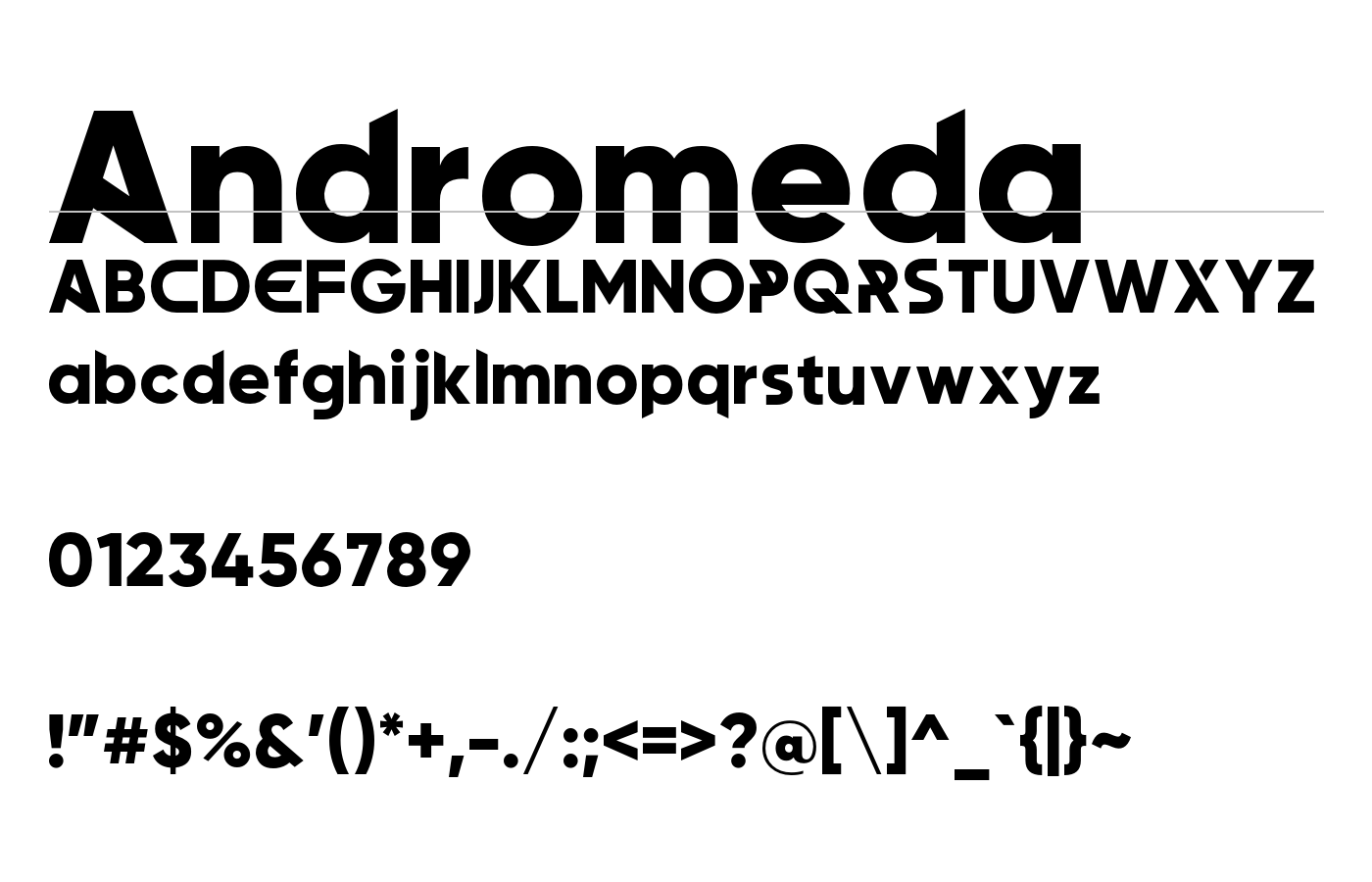
Andromeda is a bold, geometric sans-serif font with a strong, modern personality and unique angular details that make it stand out. Its clean lines and consistent stroke weight give it a sturdy, confident appearance, perfect for headlines, logos, and branding that need a contemporary and impactful look. The font’s distinctive letterforms and balanced spacing also make it well-suited for editorial and digital use where clarity and style are key.
Andromeda Font